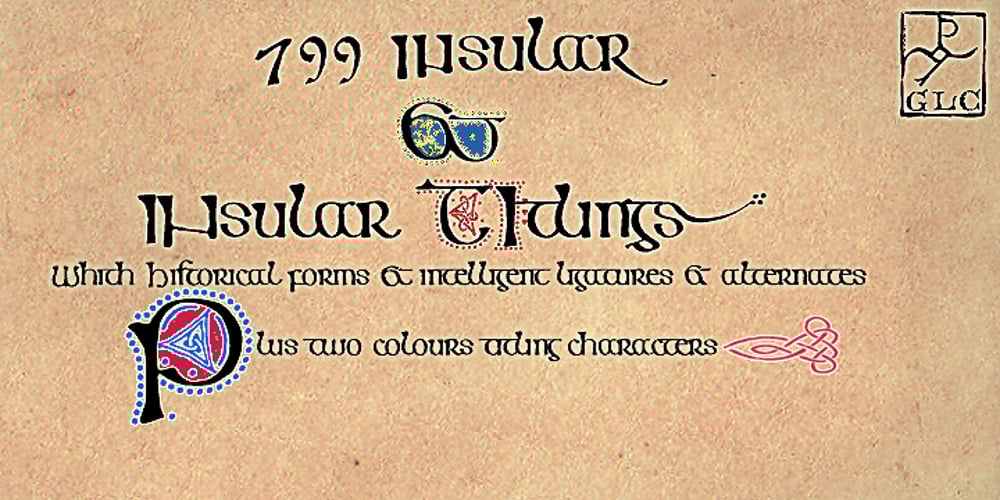
799 Insular
799 Insular font
799 Insular Font Family was designed by published by GLC. 799 Insular contains 2 styles and family package options. This font was inspired from the so called “Insular Style” Latin script used in Celtic monasteries (Ireland, Scotland—with the well known Book of Kells—and England) from the late 6th to 9th, before the Carolingian “Caroline” (look at our 825 Karolus). It was a regular script, rounded, written slowly, used mainly for specially meticulous books, with a very few ligatures. The rarely-used capitals consisted of enlarged lowercases, but, on the other hand, there was numerous historical initials. The Titling style in this familly allows to two-color decorated letters to be created, using OTF Titling feature or copy and paste technique. We have created the font as to be adapted for contemporary users, differentiating between U and V, I and J, which has not any relevance for ancient Latin scribes, and naturally with Thorn, Oslash, Lslash, K,W… The specific Celtic “y” is added as an historical alternate.